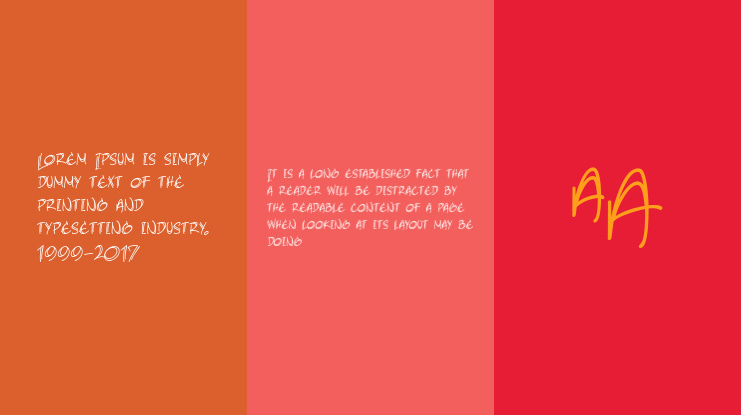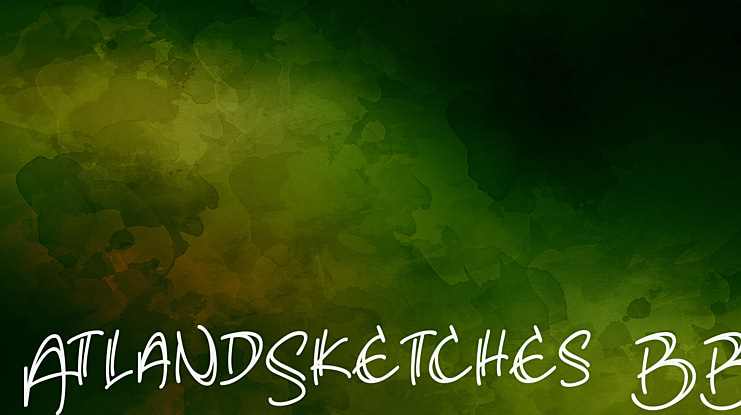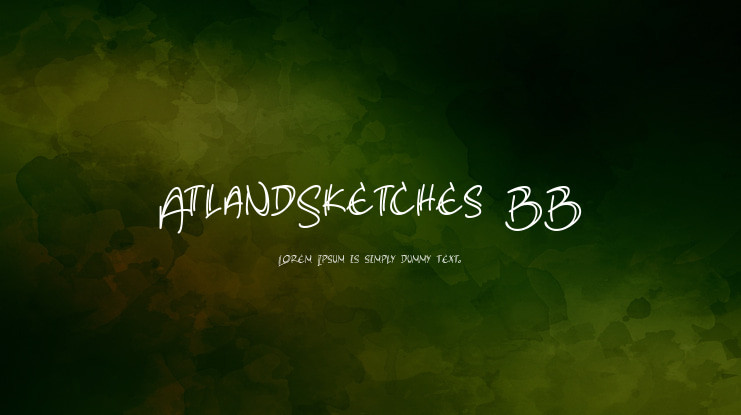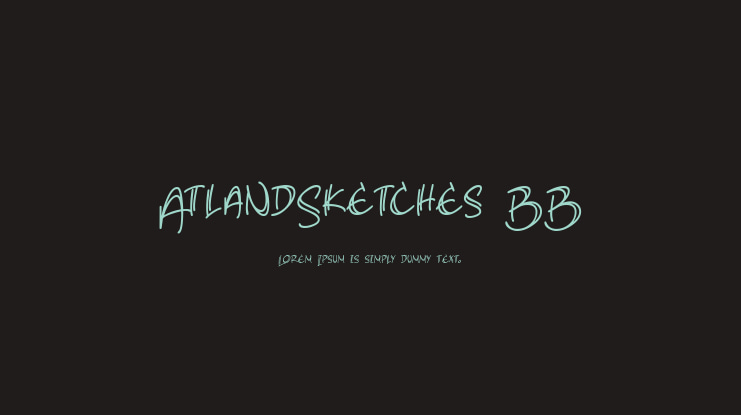
AtlandSketches BB Font Family
Nate Piekos
Back in January of 2005, when Atland Vol. 1 came out, I started getting e-mails about how I hand-lettered the sketches in the Sketchbook section. Well, it's taken more than a year and a half, but it's finally a font! Hopefully it was worth the wait!